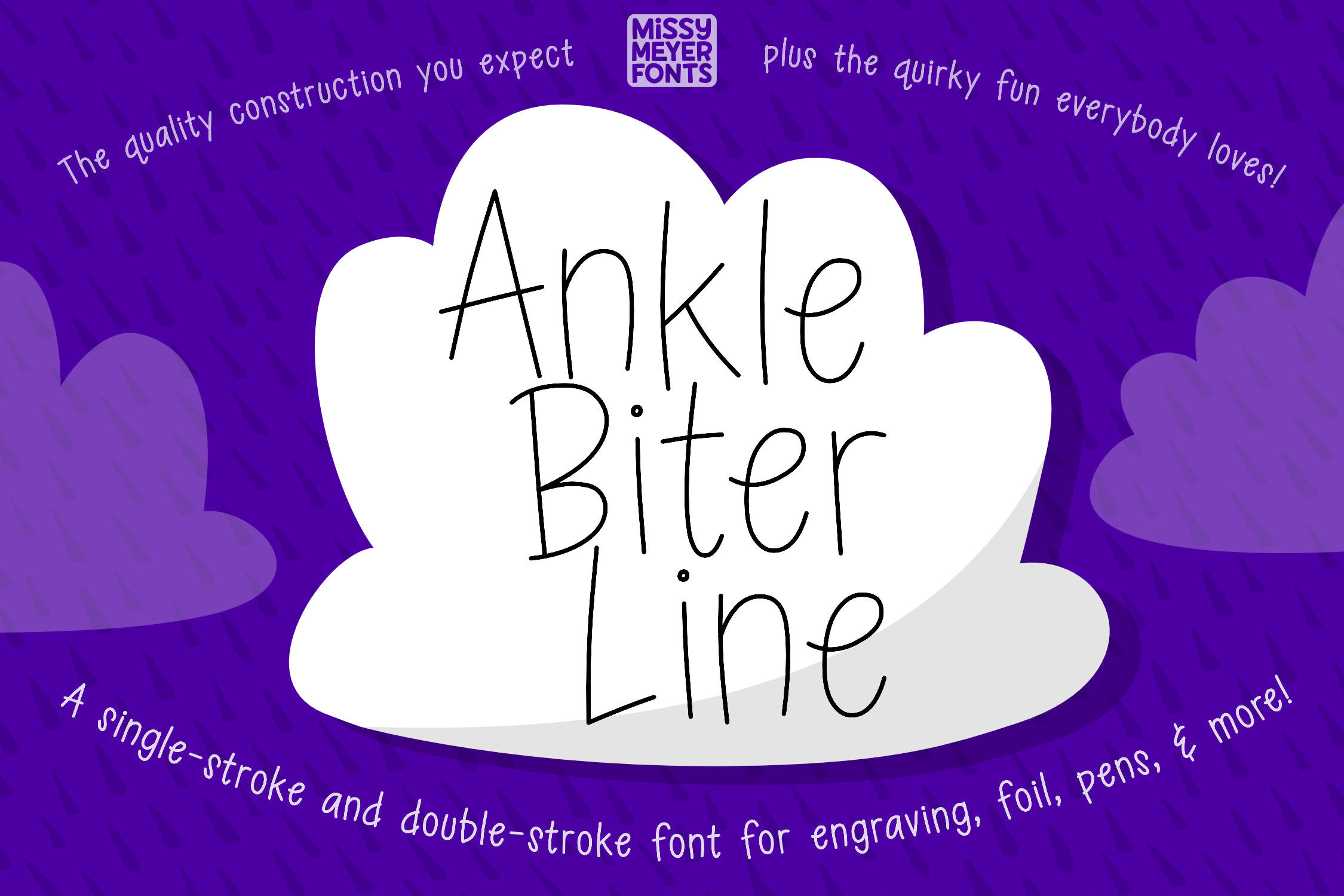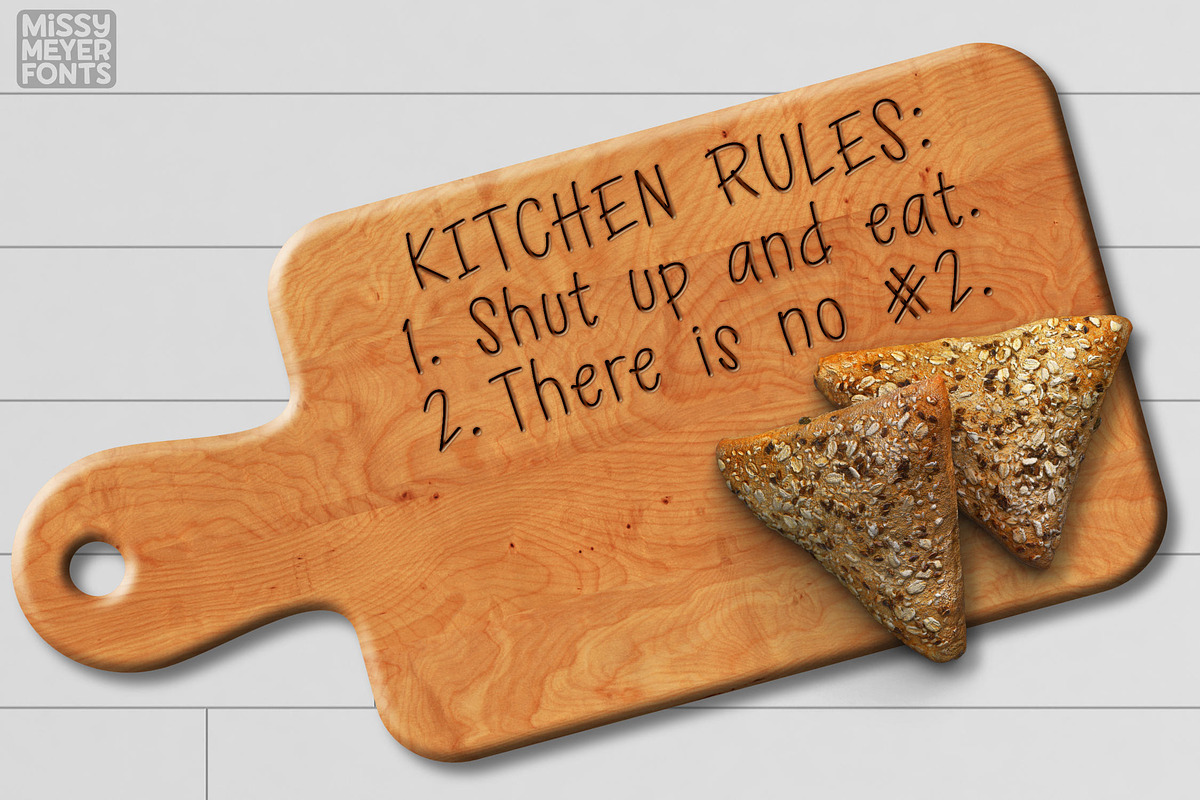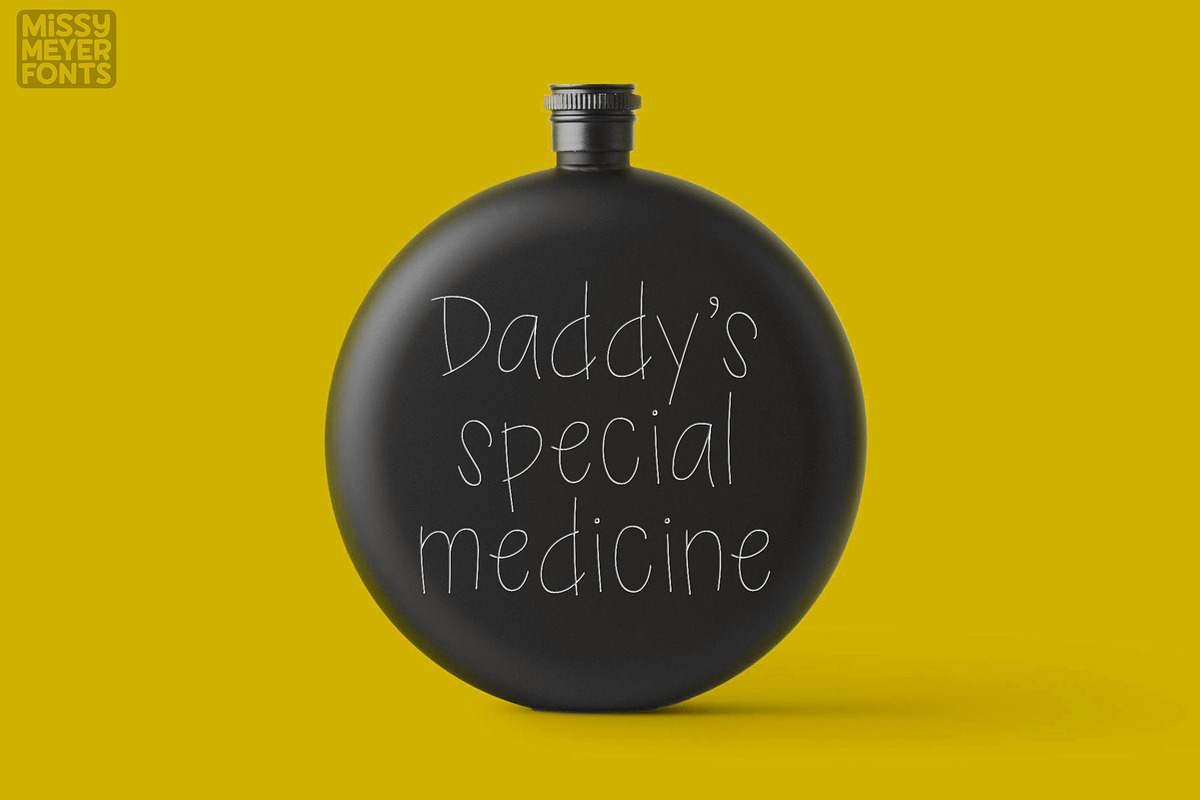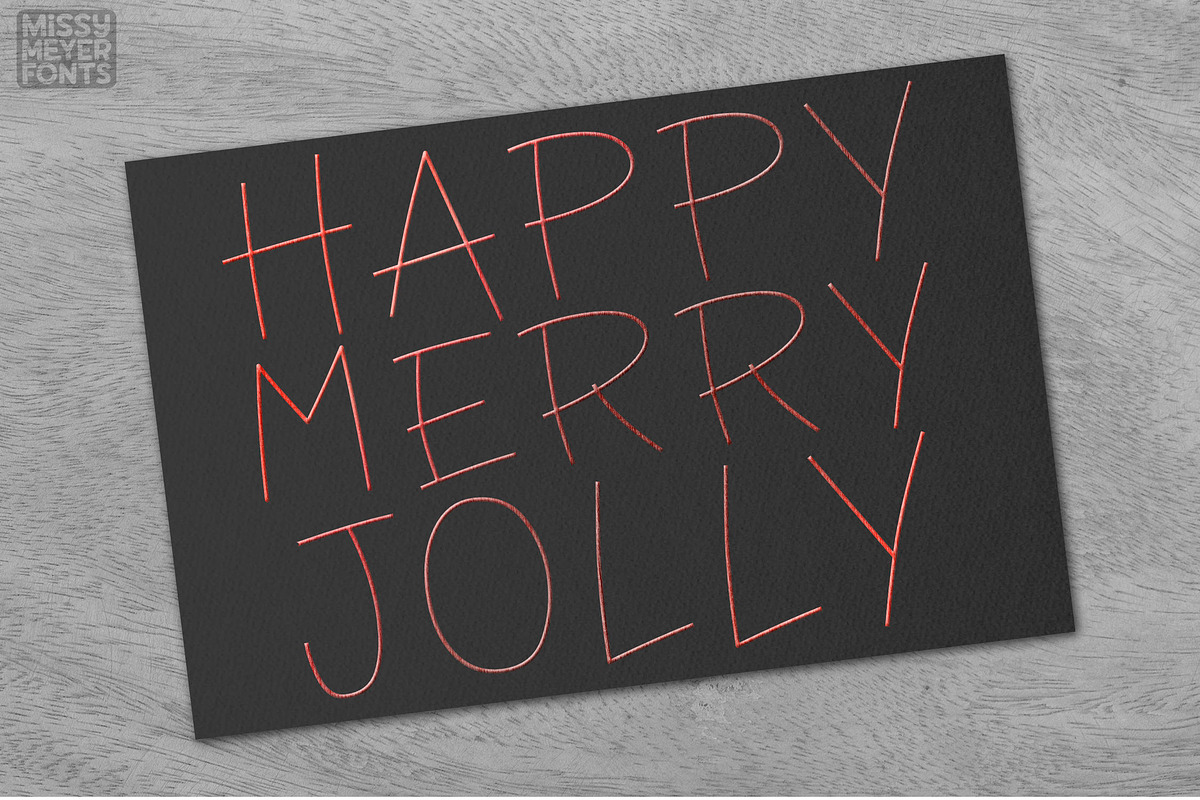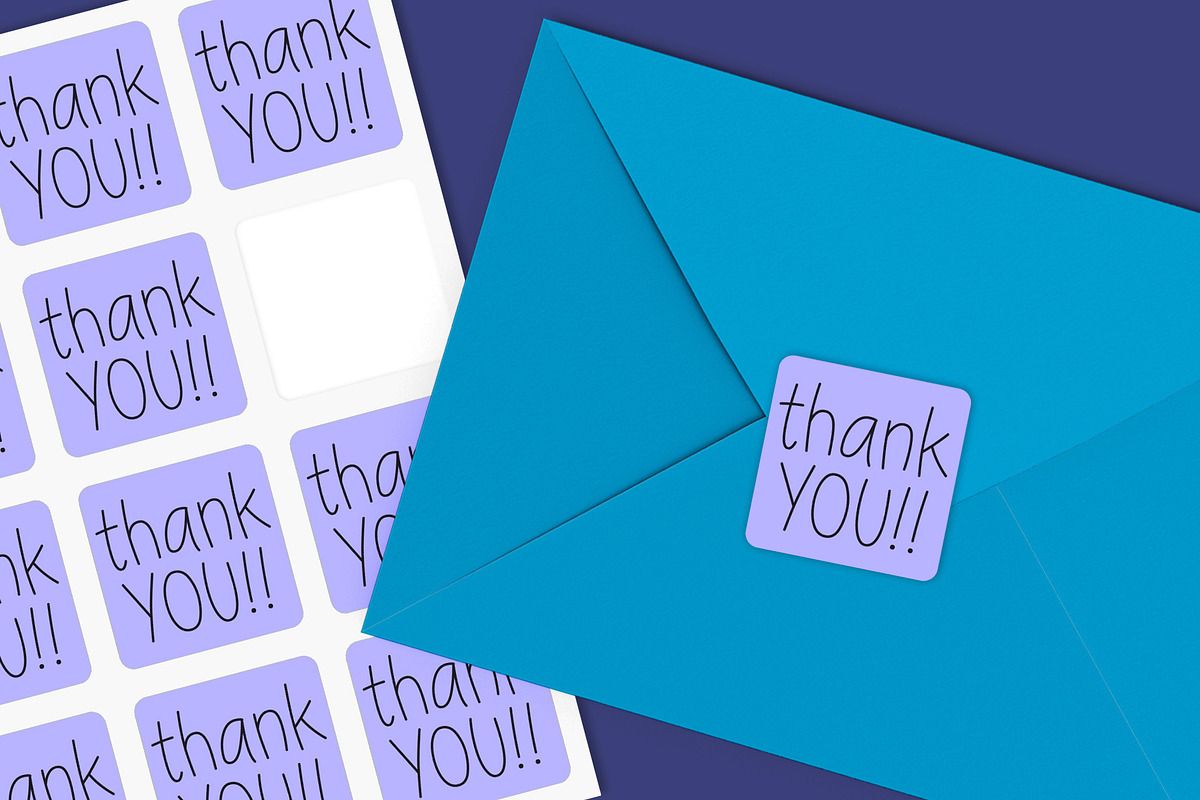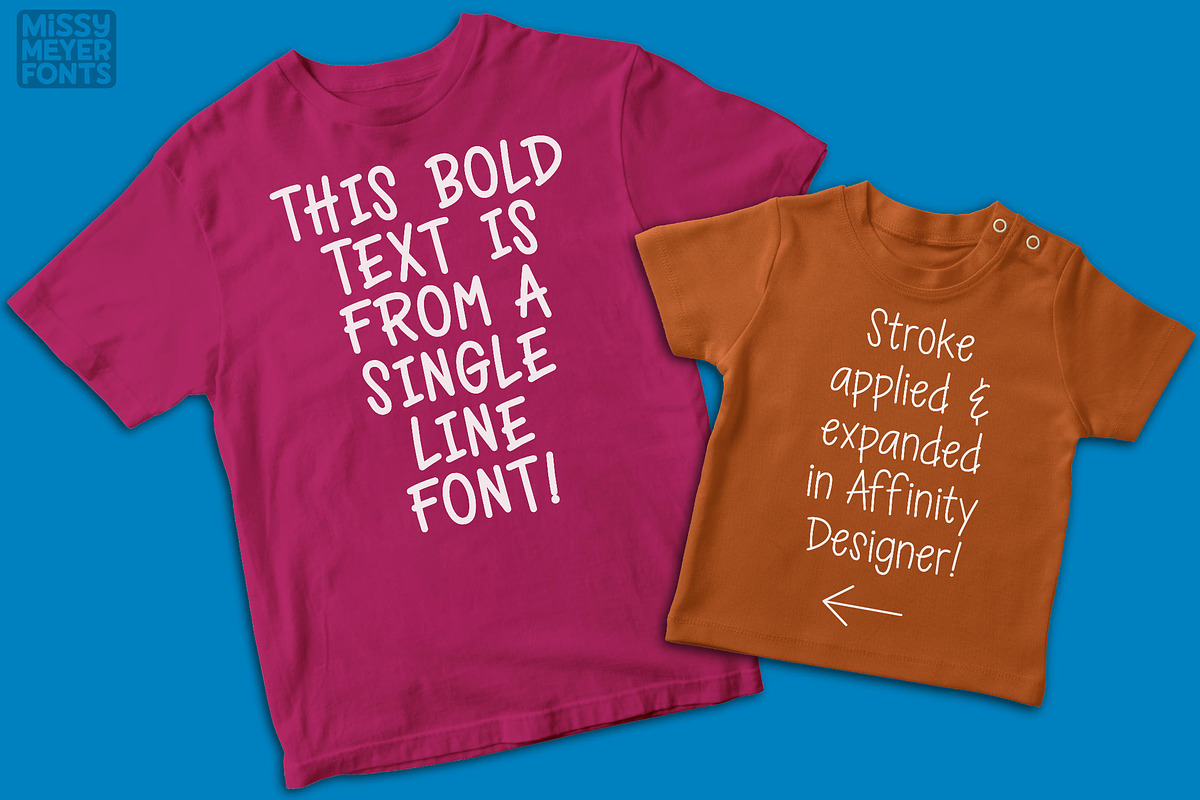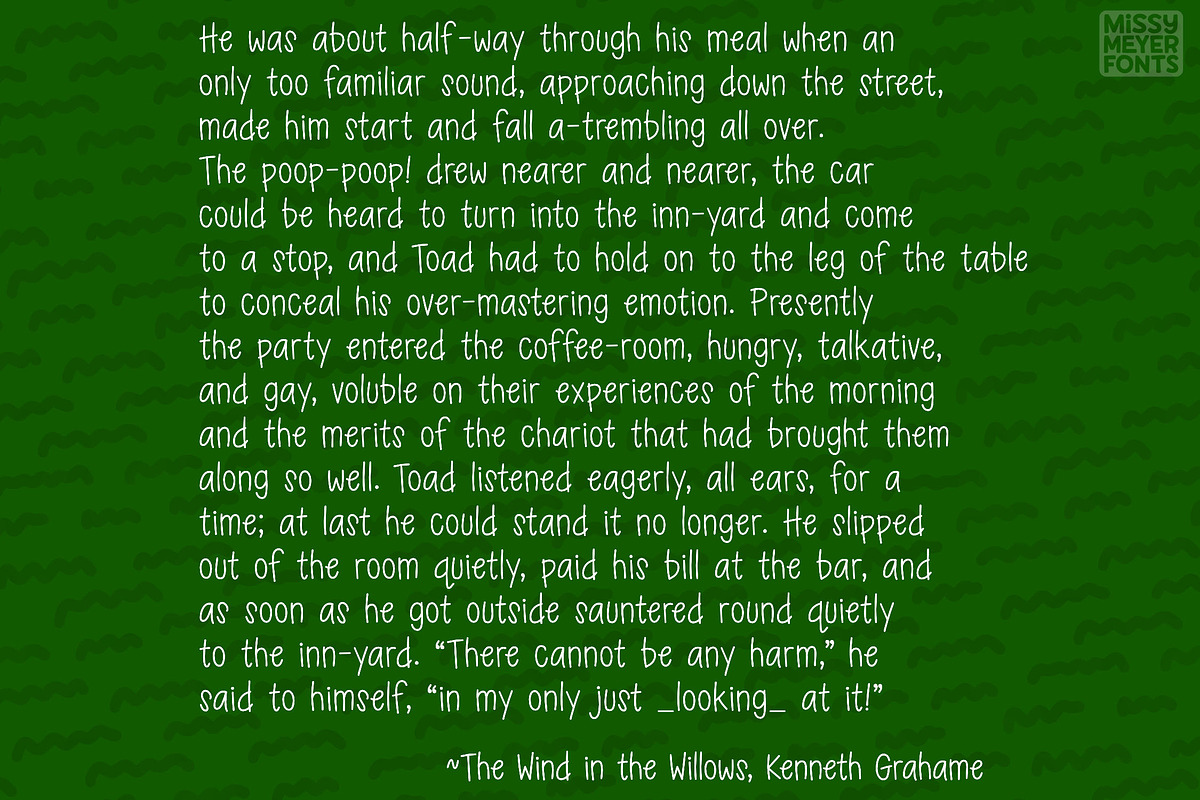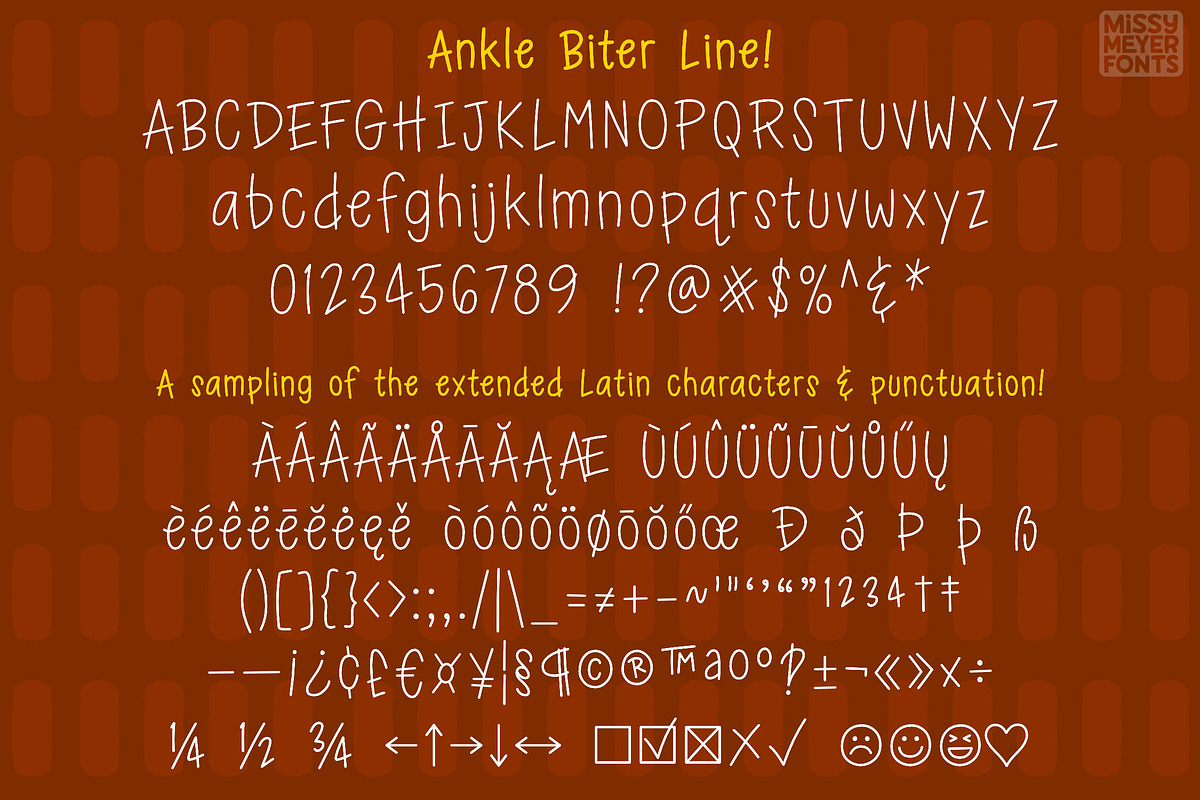
Ankle Biter Line - single-line font
Ankle Biter Line is a single-line font built from my "Ankle Biter Print" outline font. It has a fun handwritten style that works for tons of projects, from greeting cards to jewelry to cutting boards!
The font contains the full Basic Latin 95-character set (A-Z, a-z, 0-9, lots of punctuation; basically everything that appears on an English-language keyboard), as well as the Latin-1 Supplemental and Latin Extended-A character sets for language support; some extra punctuation; and several handy arrows and shapes. Supported languages range from English to Icelandic, from Spanish to Swedish!